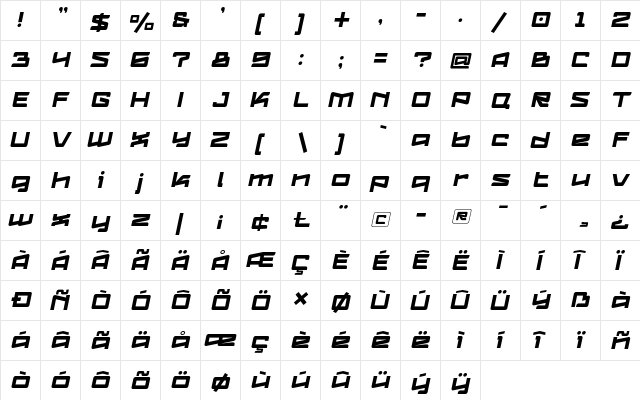
Logofontik 4F Italic
Design Context for Logofontik 4F Typeface
Logofontik 4F is a composed and adaptable typeface that performs quietly and consistently across a wide range of design contexts. The dynamic lean of this cut emphasises speed and emphasis in any layout.
Pro Tip: Try Logofontik 4F for annotation and caption copy alongside an upright companion — the contrast in angle creates a dynamic but ordered typographic system.